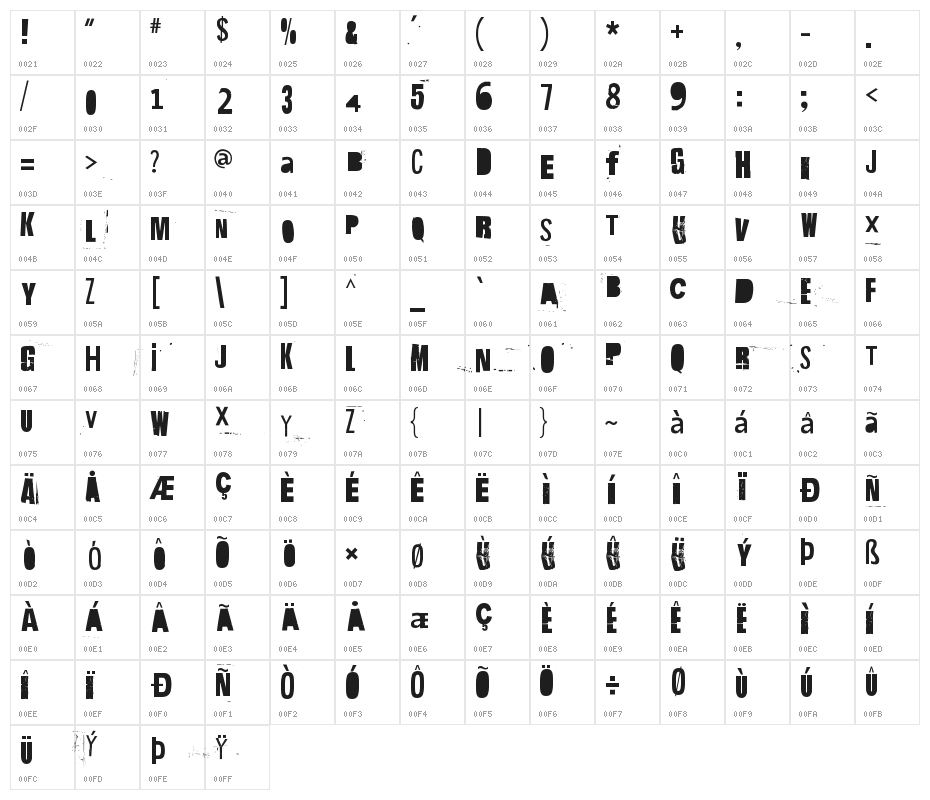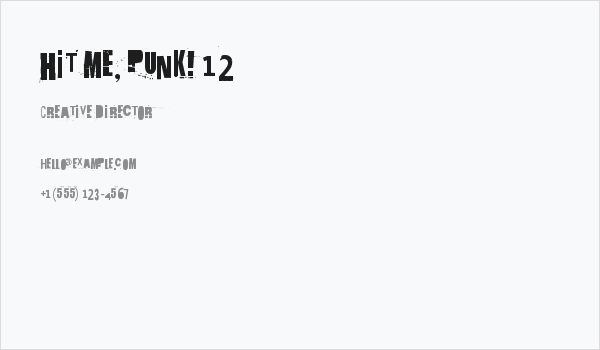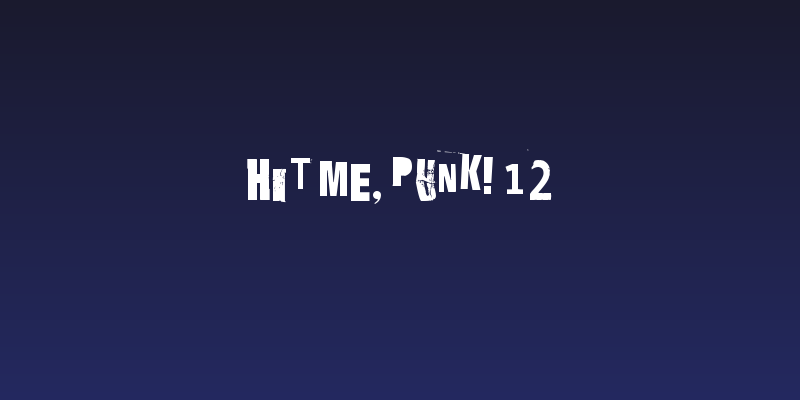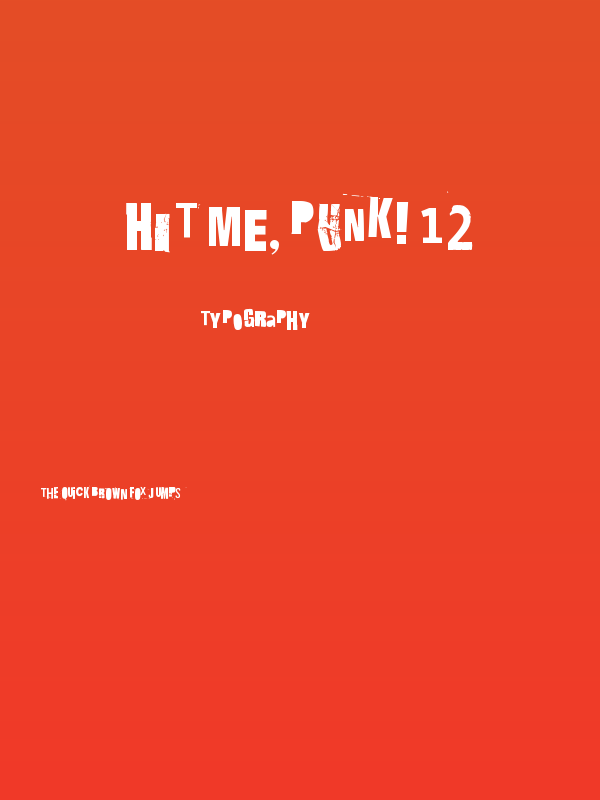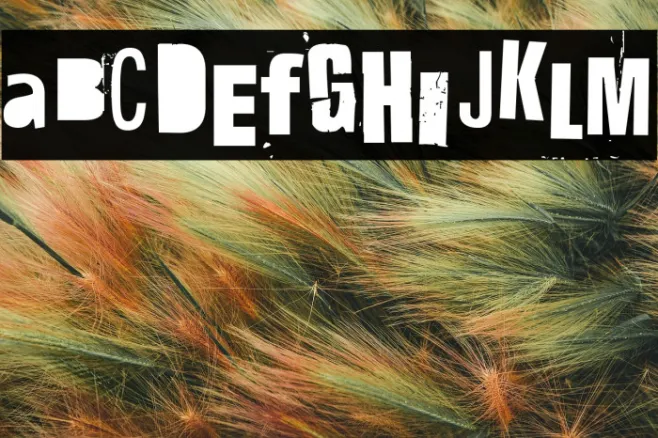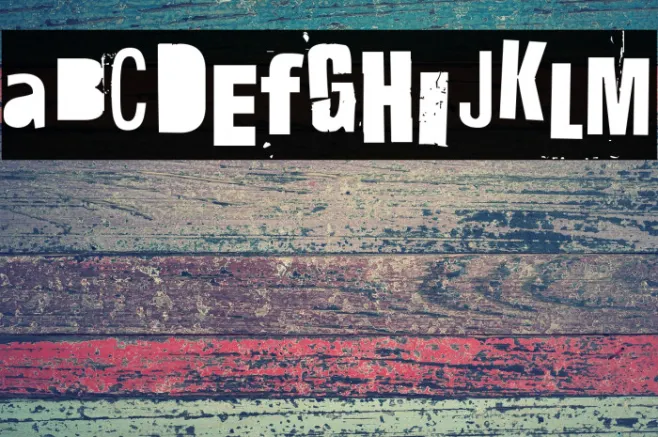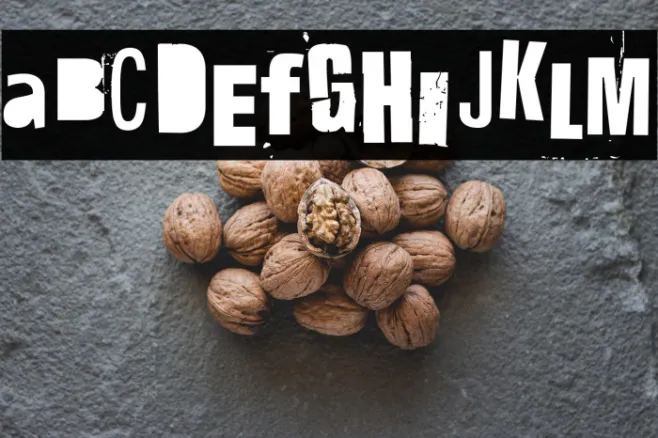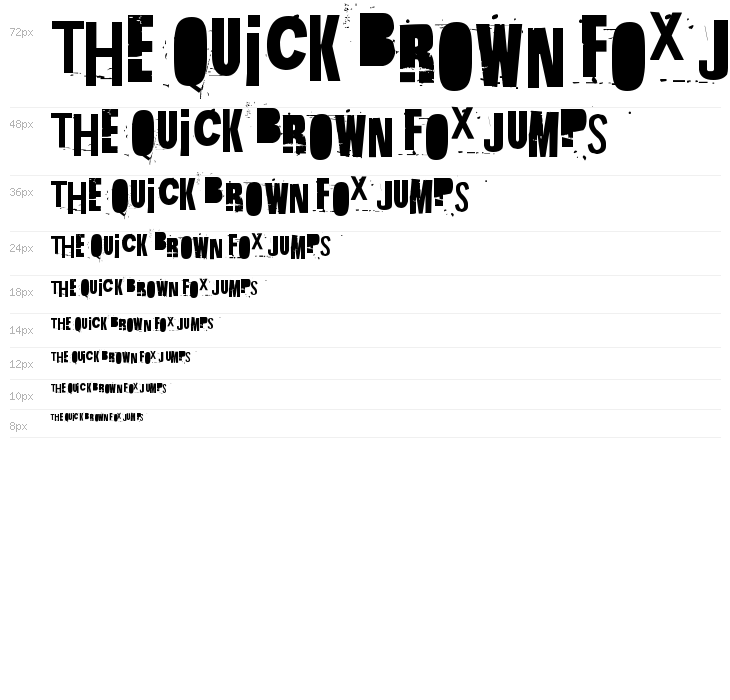
Hit me, punk! 12 Font
Hit me, punk! 12 Description
This font exudes a gritty, rebellious aesthetic, reminiscent of punk rock culture. The letters are bold and heavily distressed, giving them a rough, worn-out appearance. Each character seems to have been cut out and pasted together, creating an uneven, chaotic look. The uppercase and lowercase letters maintain this distressed style, with varying degrees of texture and irregularity. Numbers and special characters follow the same design, adding to the overall edgy feel. This font is perfect for projects that require a raw, urban vibe, capturing the essence of street art and underground music scenes.
| Overall Style | Punk, Urban, Grunge |
| Use Case | Headlines, Posters, Logos |
| Proposed Projects | Album covers, concert posters, streetwear branding, graffiti art, rebellious-themed designs. |